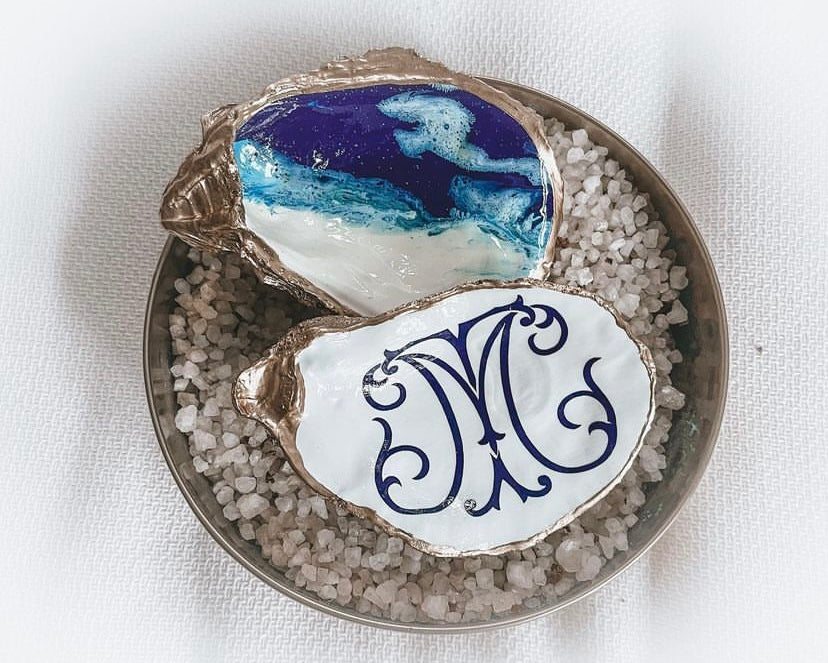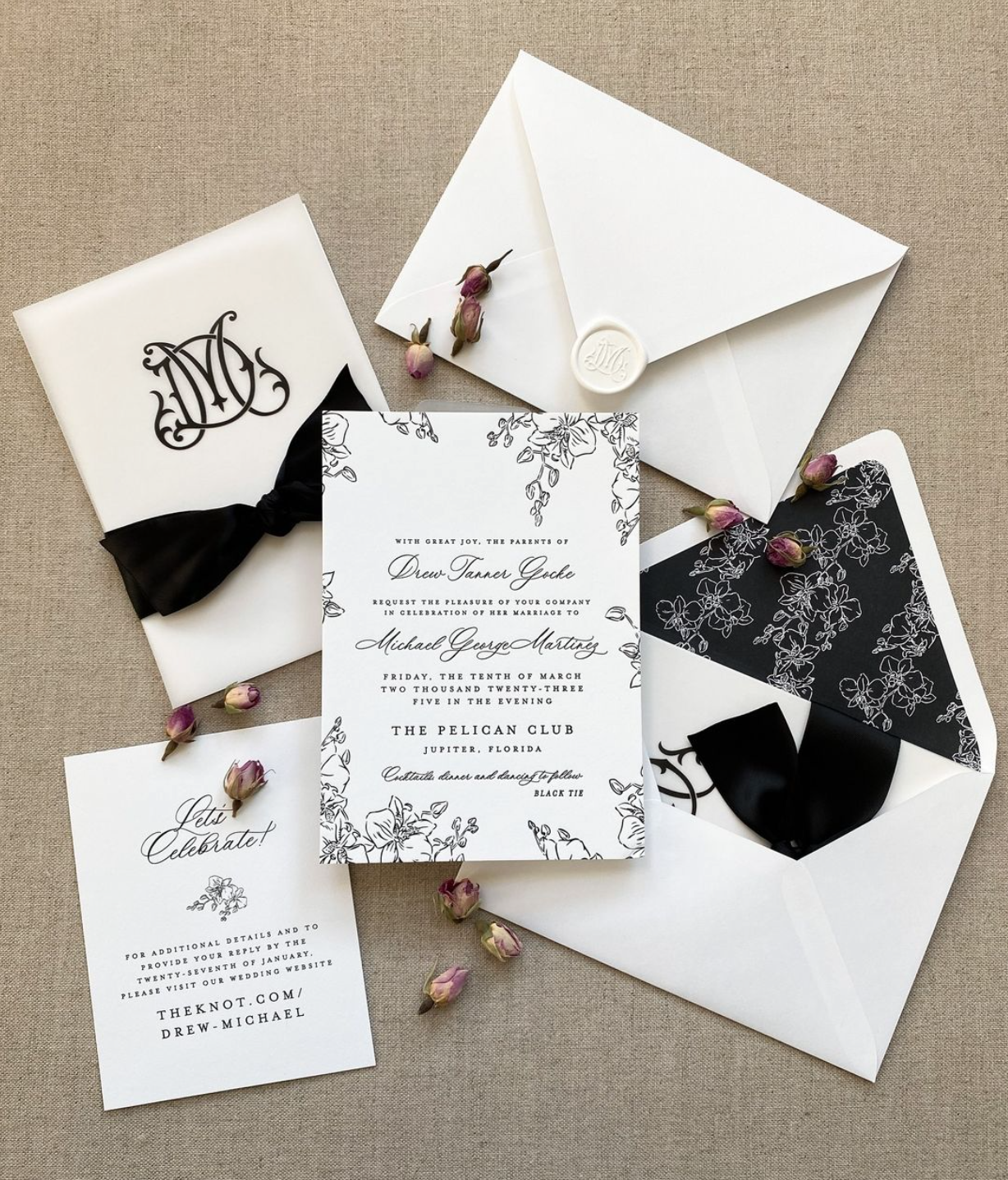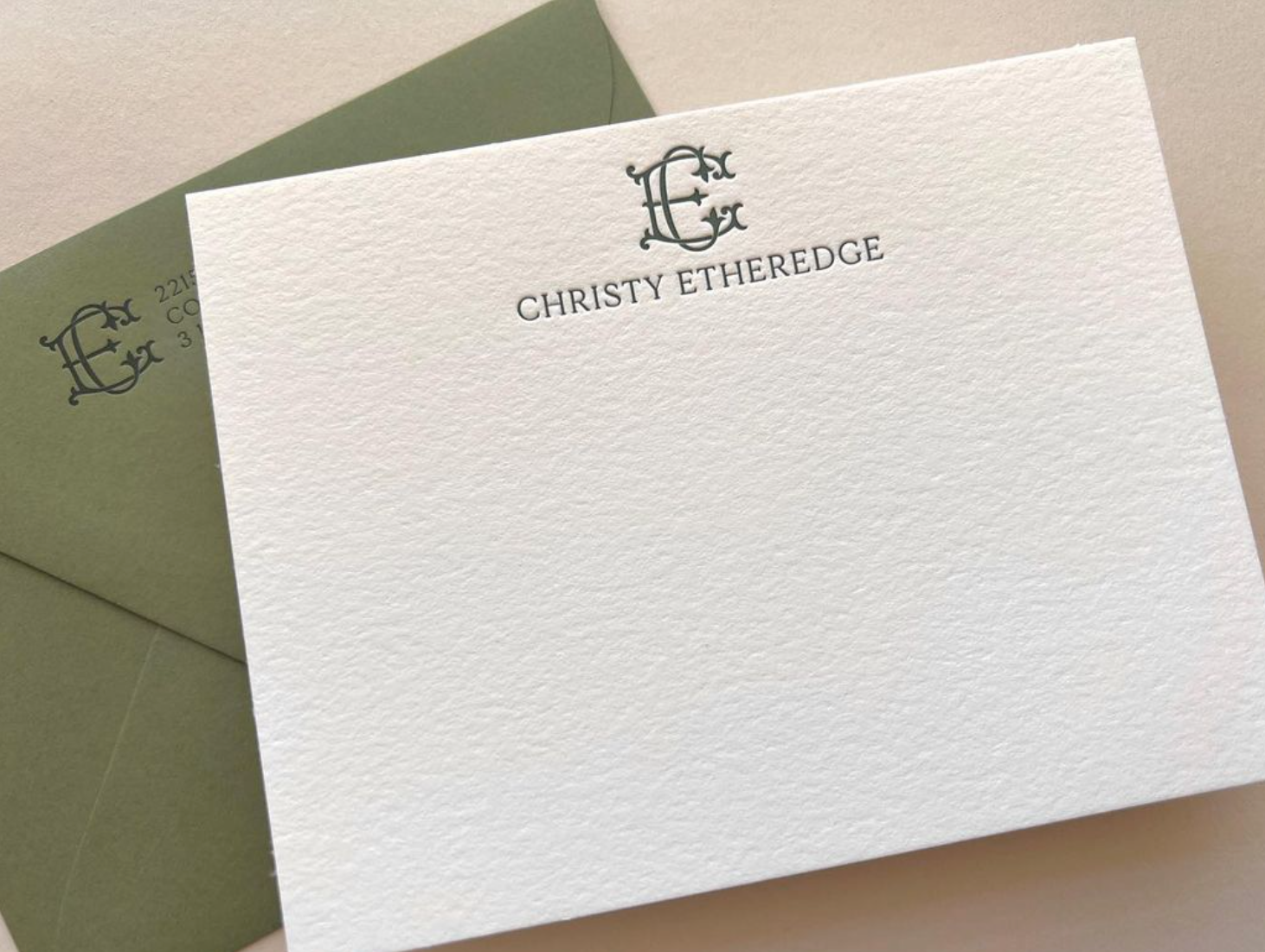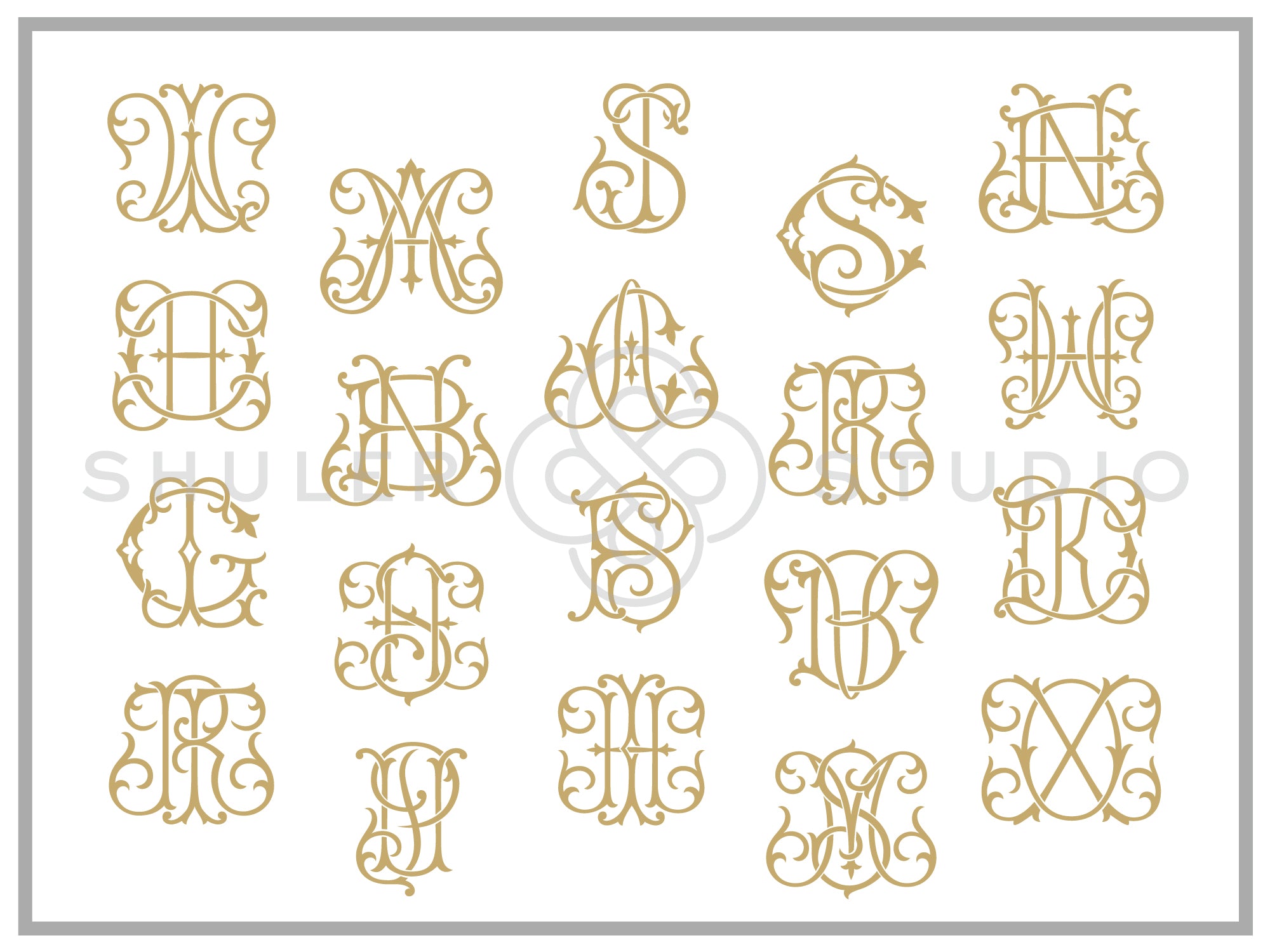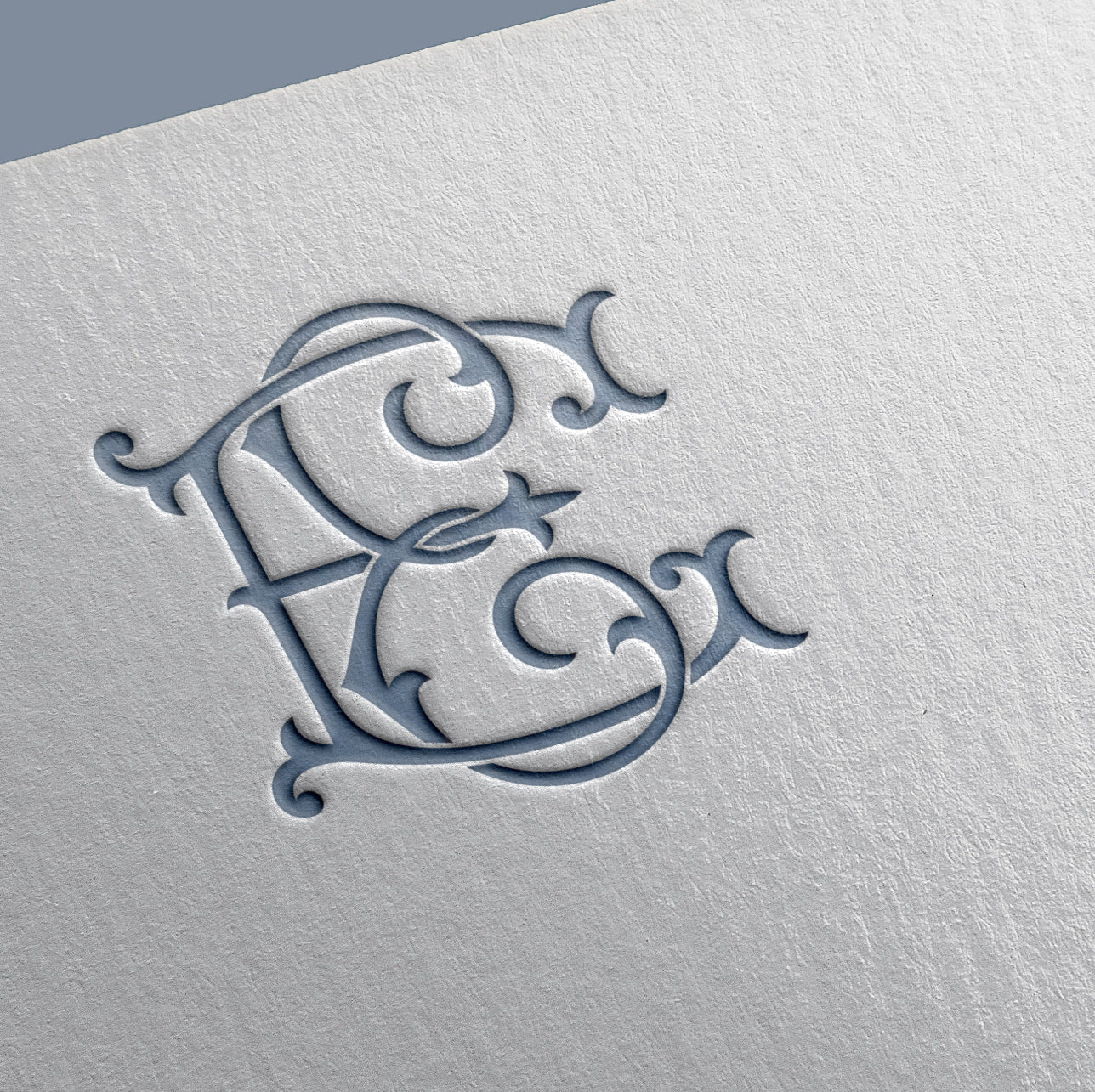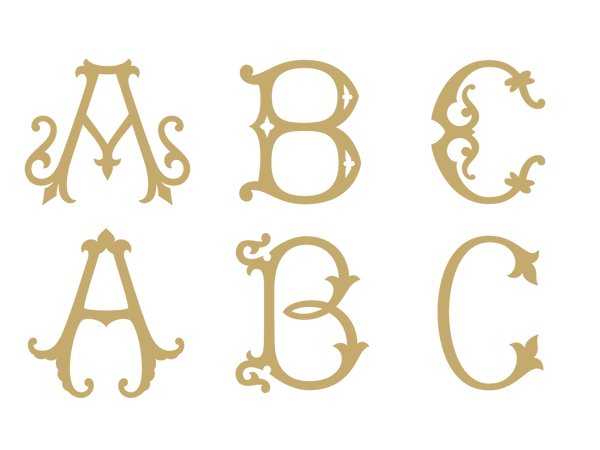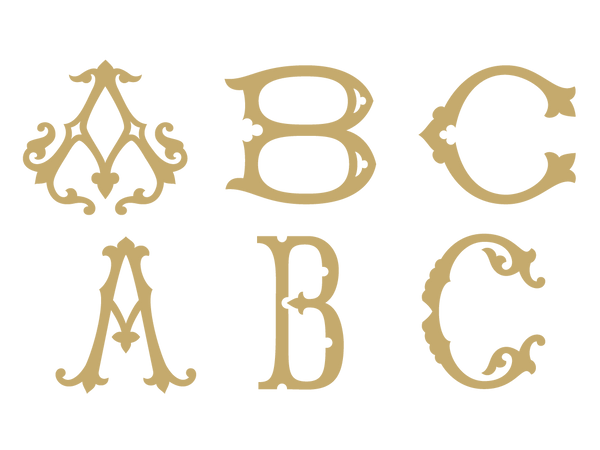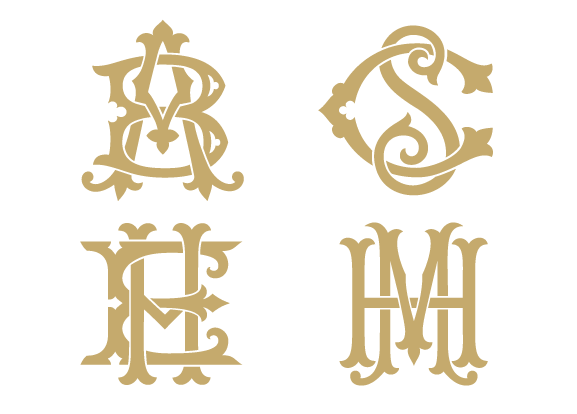
Monogram Couture Font for Print
Monogram Couture is a graceful and delicate font - perfect for invitation suites, notecards, and more. This is an amazing collection (351 designs) of interlocking 2-letter monograms created by simply keying in the 2 letters desired. Beautiful elements and detail make this the perfect font for distinctive personalization.
How Our Interlocking Fonts Work
Type 2 letters on your keyboard to create the interlocking monogram. That's it - 351 monogram designs at your fingertips!